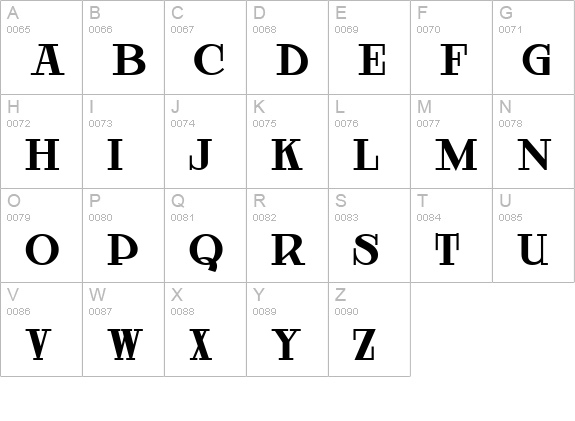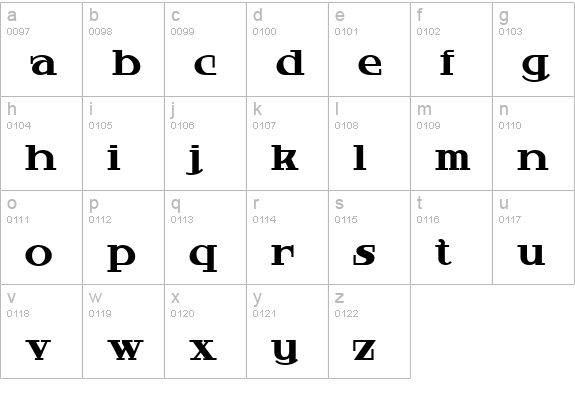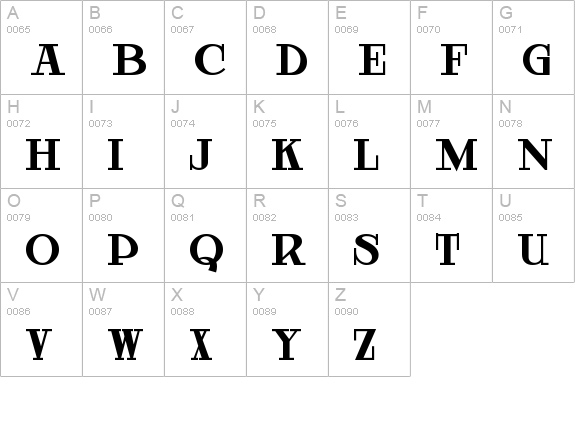
HardlyWorthit Font Details
Introducing HardlyWorthit font - a captivating and versatile typeface that effortlessly combines elegance with a touch of quirkiness. Crafted with meticulous attention to detail, this font will surely leave a lasting impression on any design project. HardlyWorthit font boasts a unique blend of bold lines and delicate curves, resulting in a visually striking aesthetic that is both modern and timeless. Its versatility shines through, making it suitable for a wide range of applications, from branding and packaging to editorial design and advertising. This font offers a wide variety of weights and styles, providing endless possibilities to experiment and create captivating compositions. Whether you're aiming for a clean, minimalist look or a more playful and adventurous design, HardlyWorthit font has got you covered. But what truly sets this font apart is its accessibility. HardlyWorthit font is freely available to download at FontsMarket.com, allowing designers and creators from all walks of life to unleash their creativity without any financial constraints. This means that you can bring your vision to life without breaking the bank, making it an invaluable resource for both professionals and amateurs alike. So why wait? Download HardlyWorthit font today and experience the freedom to create stunning designs that captivate and engage. Let your imagination run wild with this exceptional typeface, and watch as your projects come to life with style and sophistication.